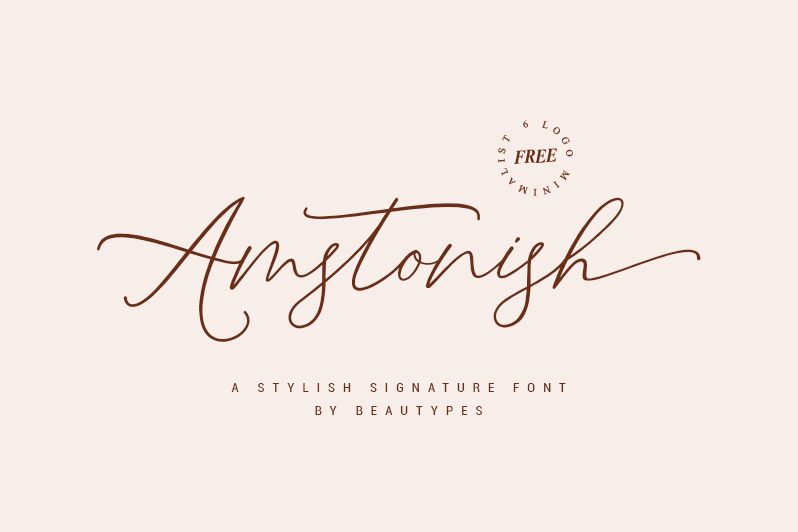
Amstonish, the latest creation by Beautypes, is an extra-light signature handwritten font that will add a touch of elegance to any project. Its delicate strokes and curves create a unique and personal feel to your designs. Use Amstonish for wedding invitations, branding projects, or even blog headers. This font is perfect for anything that needs a personalized touch and an extra dose of charm. Whether it's used in print or digital media, Amstonish will make your design stand out from the rest with its distinct handwriting style. Try it out today and elevate your project to the next level!